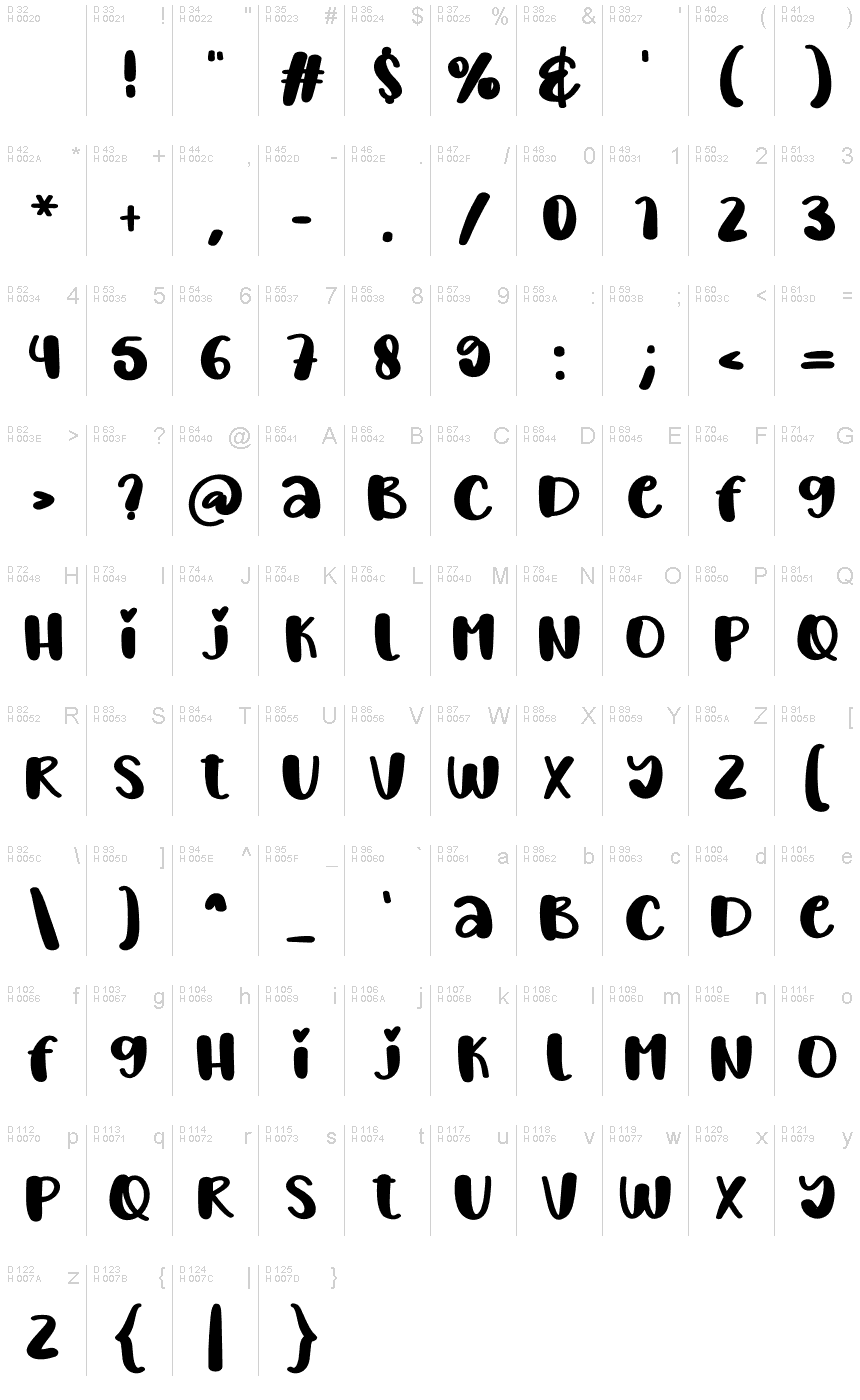
Hungry
Hungry, a playful and exuberant display font by Scratchones, is bound to add a delightful touch to your projects. With its bold and exaggerated letterforms, this cartoon-inspired typeface brings a sense of whimsy and charm to any design.
Whether you're creating children's books, animated videos, or cheerful advertisements, Hungry is the perfect choice to capture attention and inject personality into your work. Let this extra-bold font satisfy your creative appetite and make your designs truly appetizing!